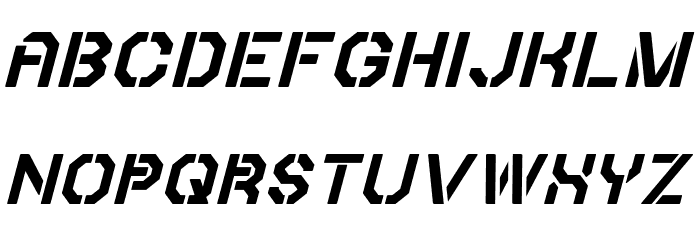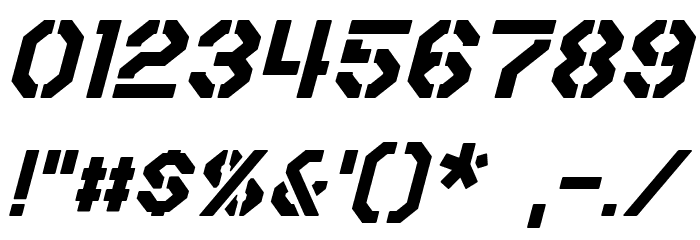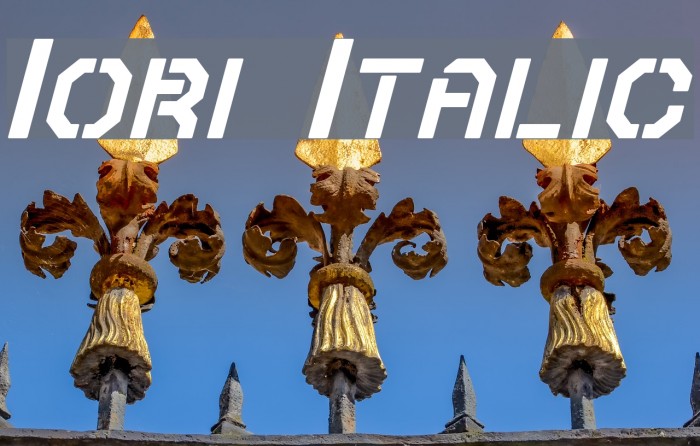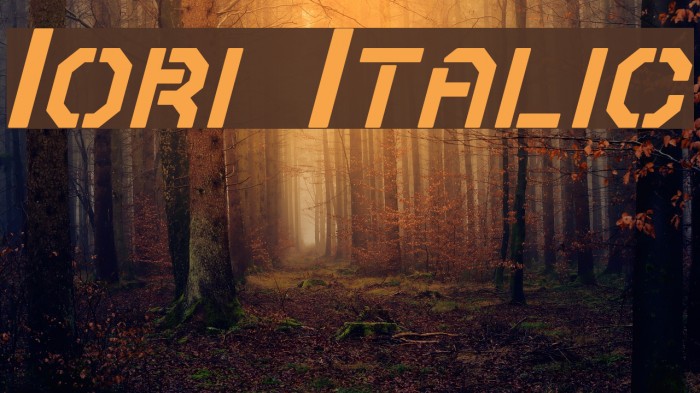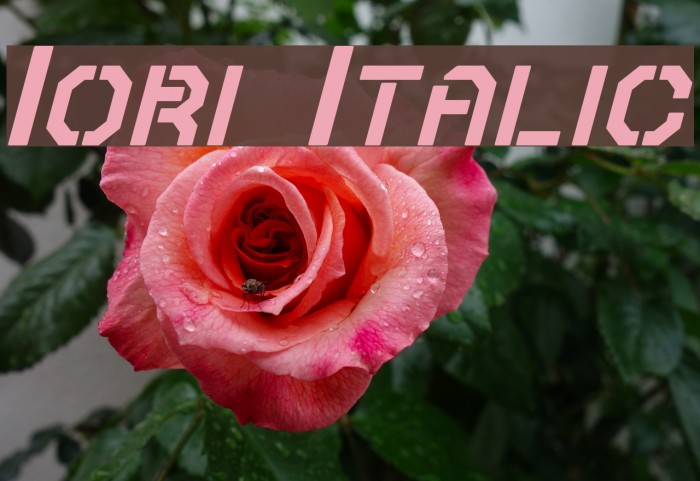
Iori Italic Font
This font exhibits a bold, angular design with a distinct italic slant, creating a dynamic and modern appearance. The characters are constructed with sharp, geometric shapes, giving them a futuristic and edgy feel. The uppercase and lowercase letters maintain a consistent style, with uniform stroke widths and a slight forward tilt that enhances the sense of motion. The numerals and special characters follow the same design principles, ensuring a cohesive look across all elements. This font's unique style makes it stand out, offering a strong visual impact.
A bold, angular, and italic font with a futuristic and dynamic style.
- Proposed Projects: Ideal for projects that require a modern and edgy look, such as tech branding, video game titles, or sci-fi themed designs.